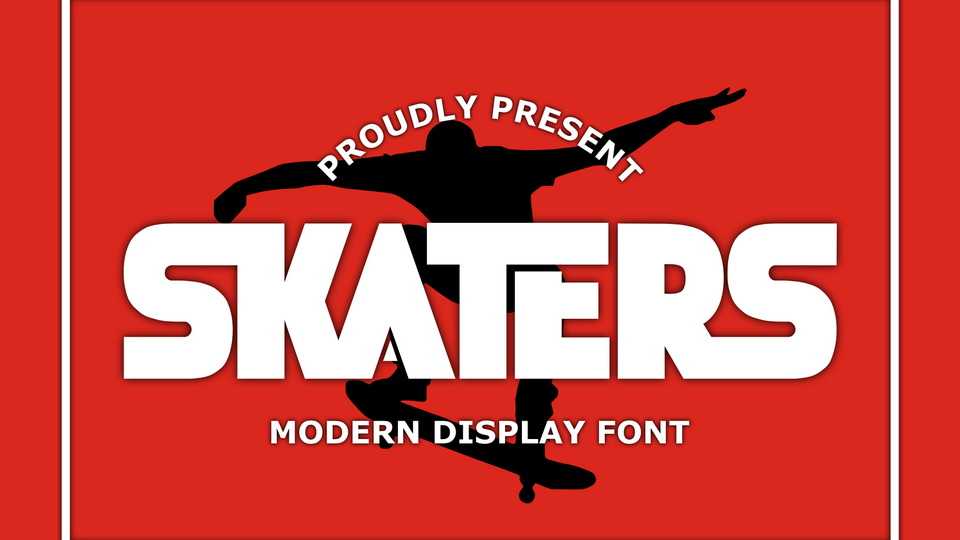
Download Skaters font, a simple, bold and chunky lettered display typeface. Use Skaters font for each of your casual designs and notice how it makes them stand out.
Designer: Teguh Pranata